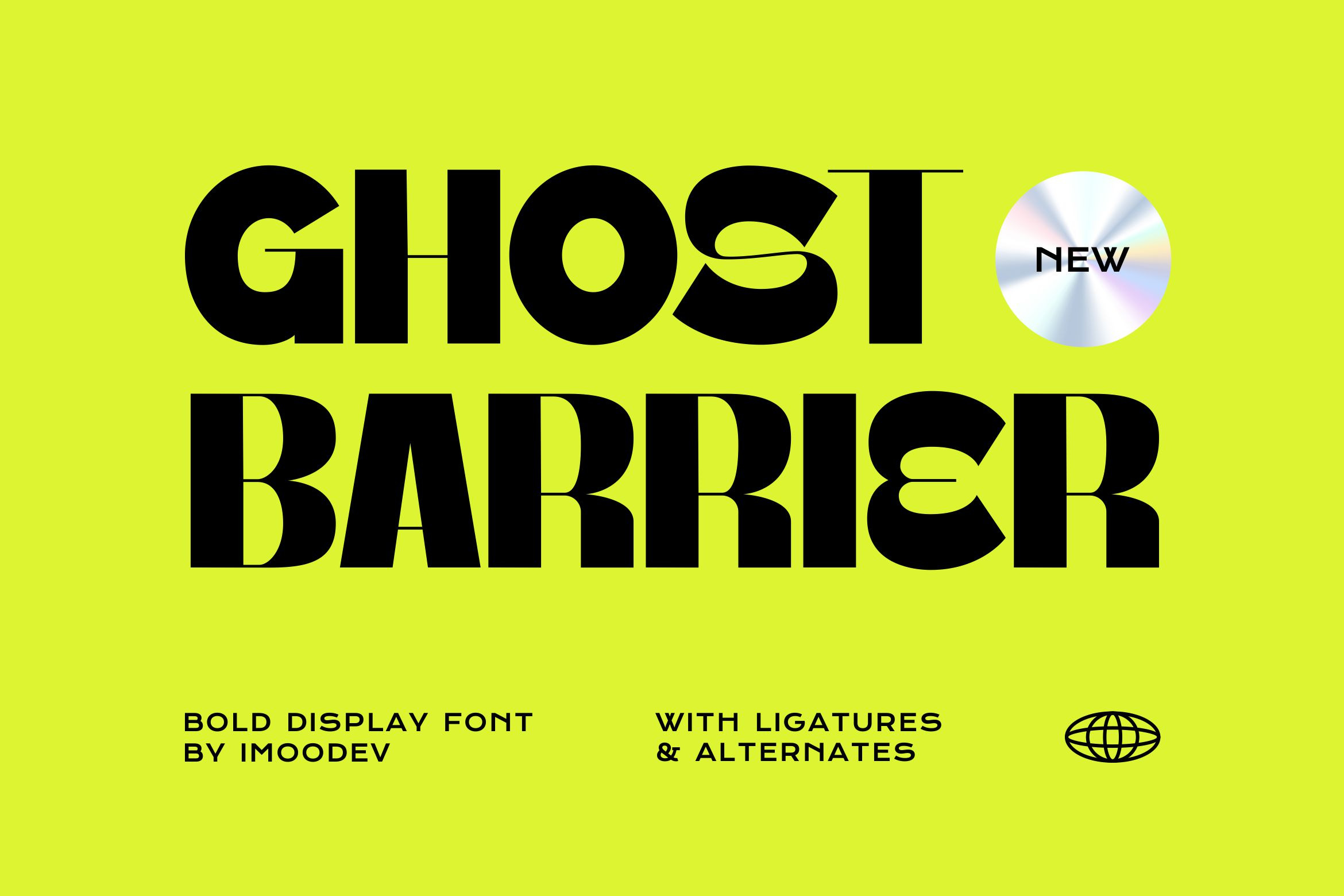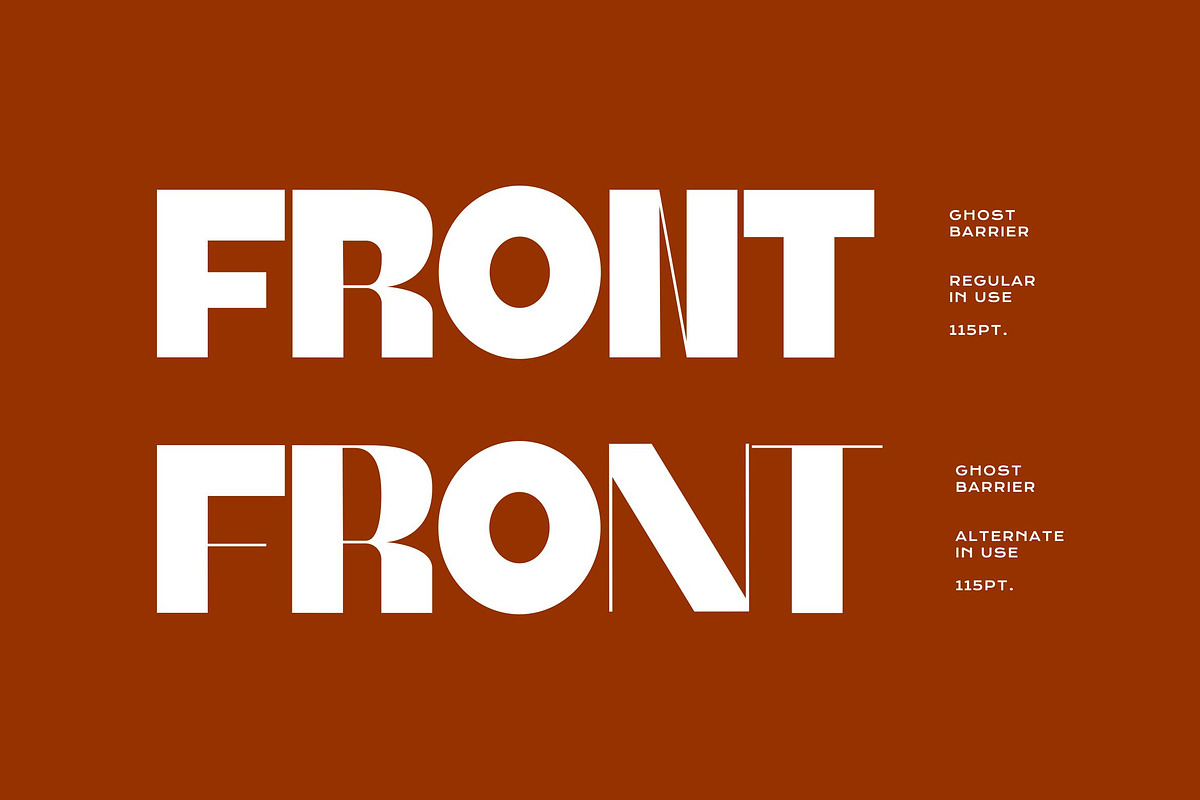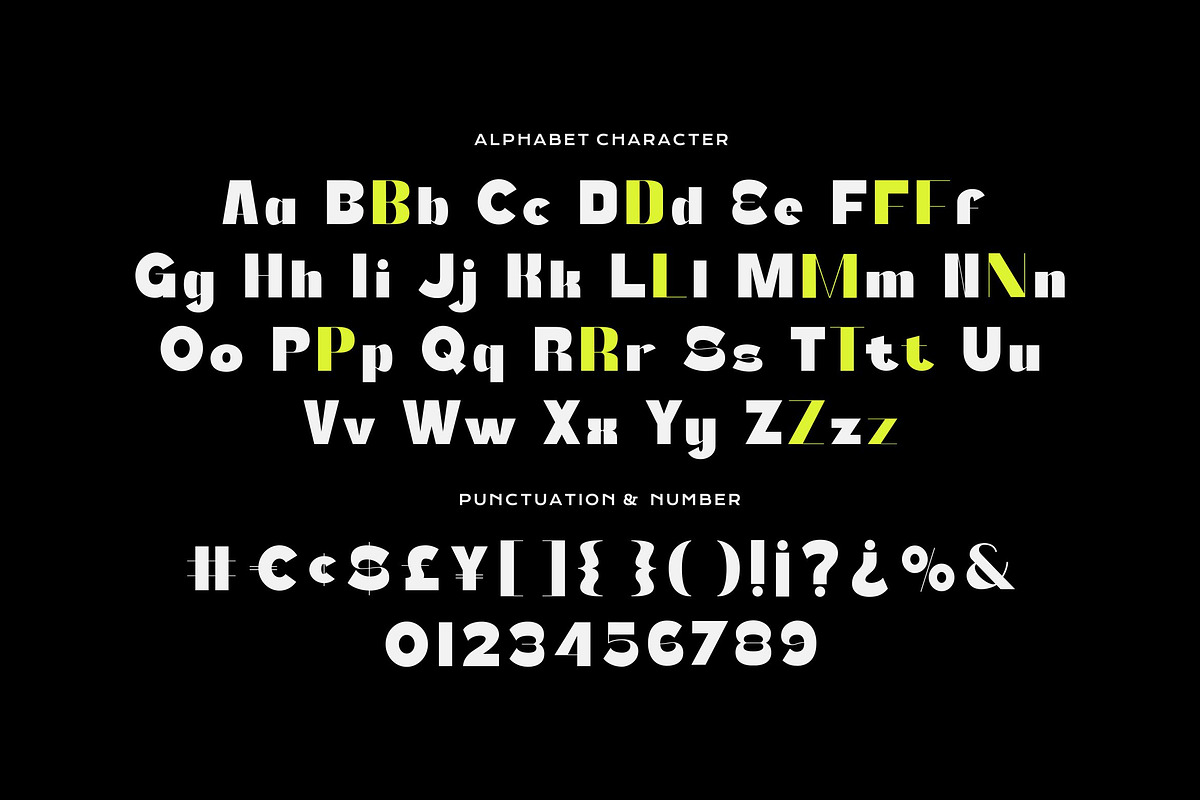
Ghost Barrier - Bold Display Font
Ghost Barrier is a powerful and futuristic display font designed for maximum visual impact. With its sharp curves, geometric cuts, and modern alternates, it delivers a contemporary yet experimental aesthetic that commands attention.
The font's design is built on a foundation of strong, geometric shapes, but with a distinctive twist. Many characters feature clean, sharp "barrier" breaks and stencil like gaps, giving the font an edgy, high tech aesthetic.
What sets Ghost Barrier apart is its dynamic system of alternate characters. Effortlessly switch between solid, powerfully chunky letterforms and striking "incised" versions that feature a clean inline cut. This built in versatility allows you to mix and match glyphs to create captivating typographic rhythm, texture, and emphasis within your headlines and titles.